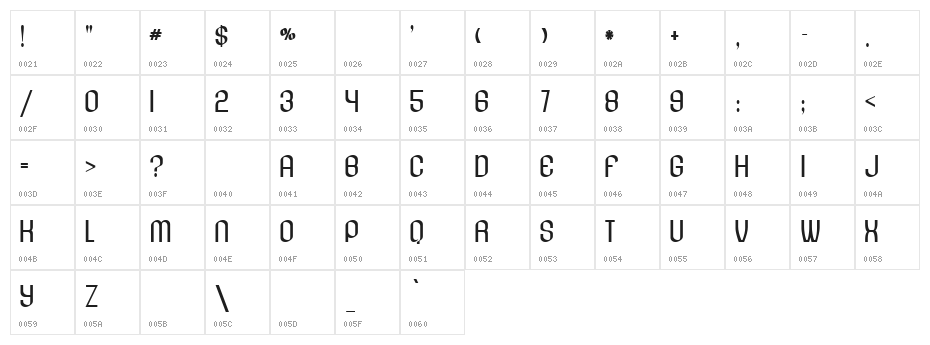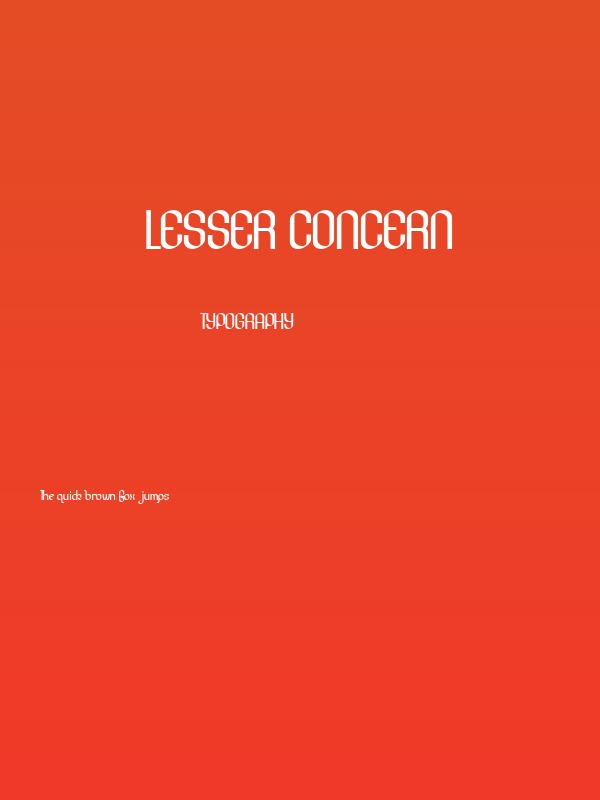
Lesser Concern Font
Lesser Concern Description
This font features a unique blend of modern and decorative elements, characterized by its bold, rounded edges and distinct geometric shapes. The uppercase letters are tall and narrow, with a consistent stroke width that gives them a clean and structured appearance. The lowercase letters maintain a playful yet sophisticated style, with some characters featuring elegant curves and loops. The numerals are equally bold and maintain the geometric theme, ensuring readability and visual appeal. Special characters are designed to complement the overall aesthetic, making this font versatile for various design needs.